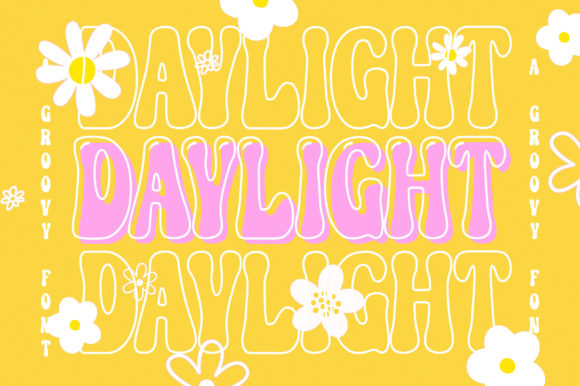
Are you tired of bland and unoriginal font choices for your branding? Look no further than Daylight Font! Created by the talented team at AMost Store, this thick and groovy display font is the perfect choice for any design project that requires a fun and cool touch.
Whether you're looking to create a bold and eye-catching logo or want to add some personality to your website or social media posts, Daylight Font has got you covered. Its unique and playful style is sure to make your brand stand out from the competition and capture the attention of your audience.
But Daylight Font isn't just about style - it's also highly functional and versatile. With a wide range of weights and styles to choose from, you can use this font for a variety of projects, from print materials to digital designs. Plus, its legibility ensures that your message is always clear and easy to read, even at smaller sizes.
So why settle for boring and generic fonts when you can elevate your branding with Daylight Font? With its unlimited potential and creative possibilities, this font is the perfect choice for any business or individual looking to make a statement with their design choices.